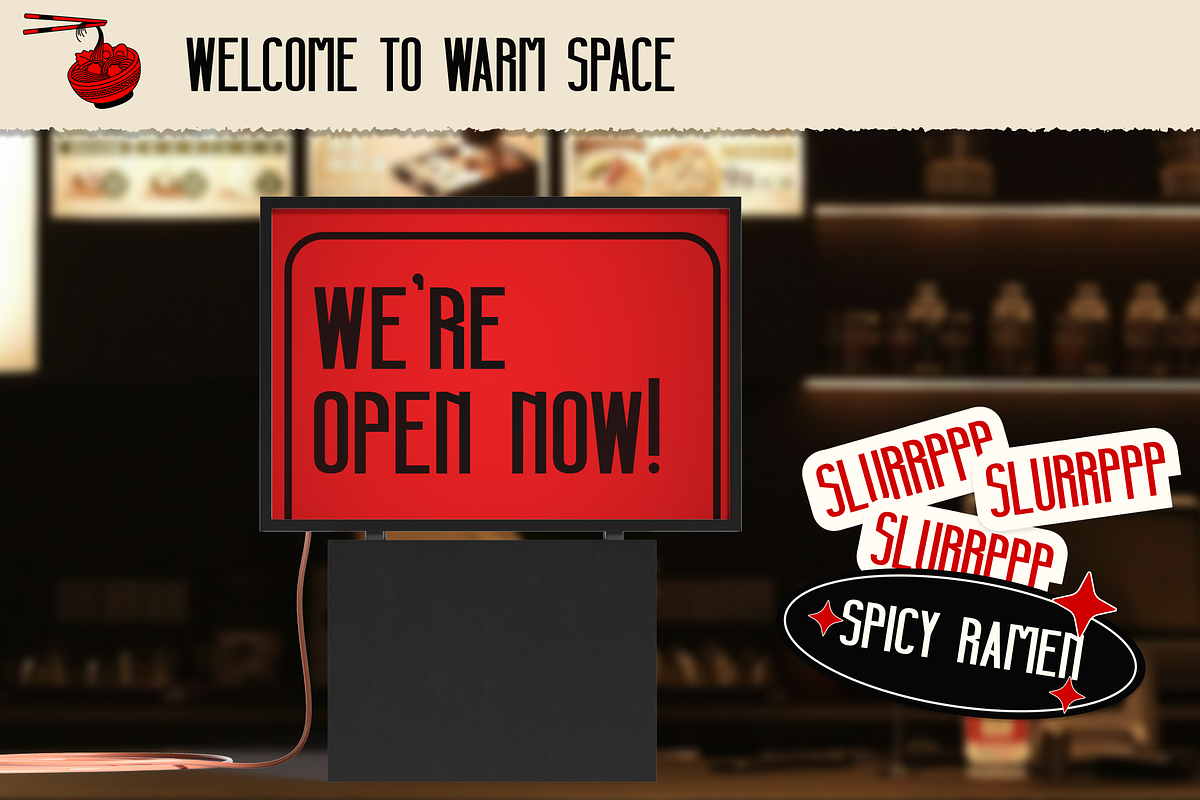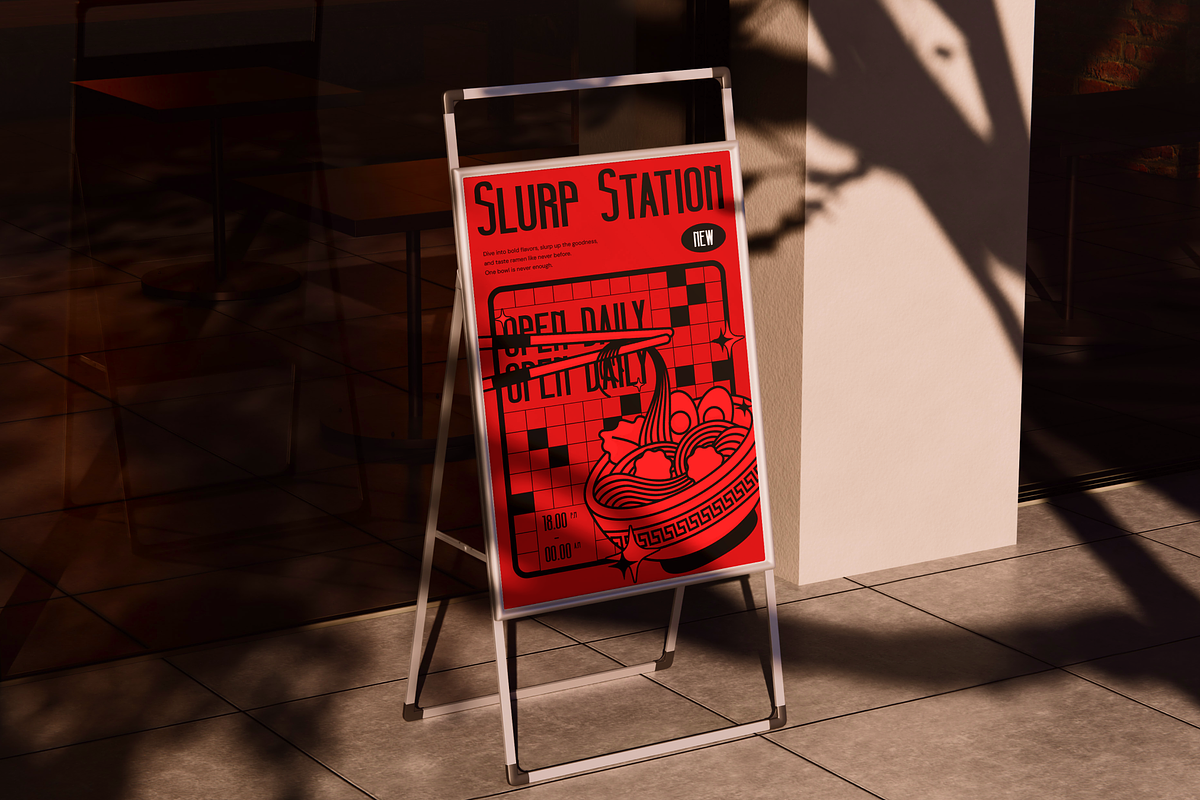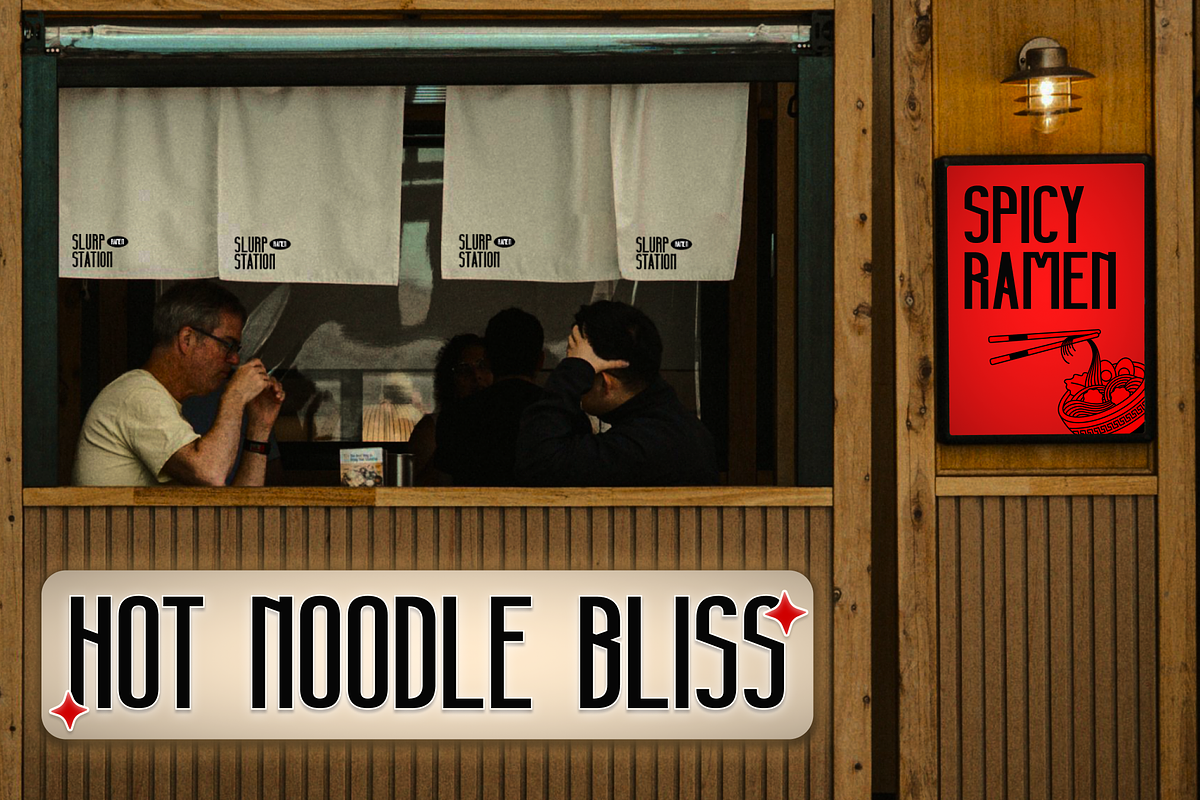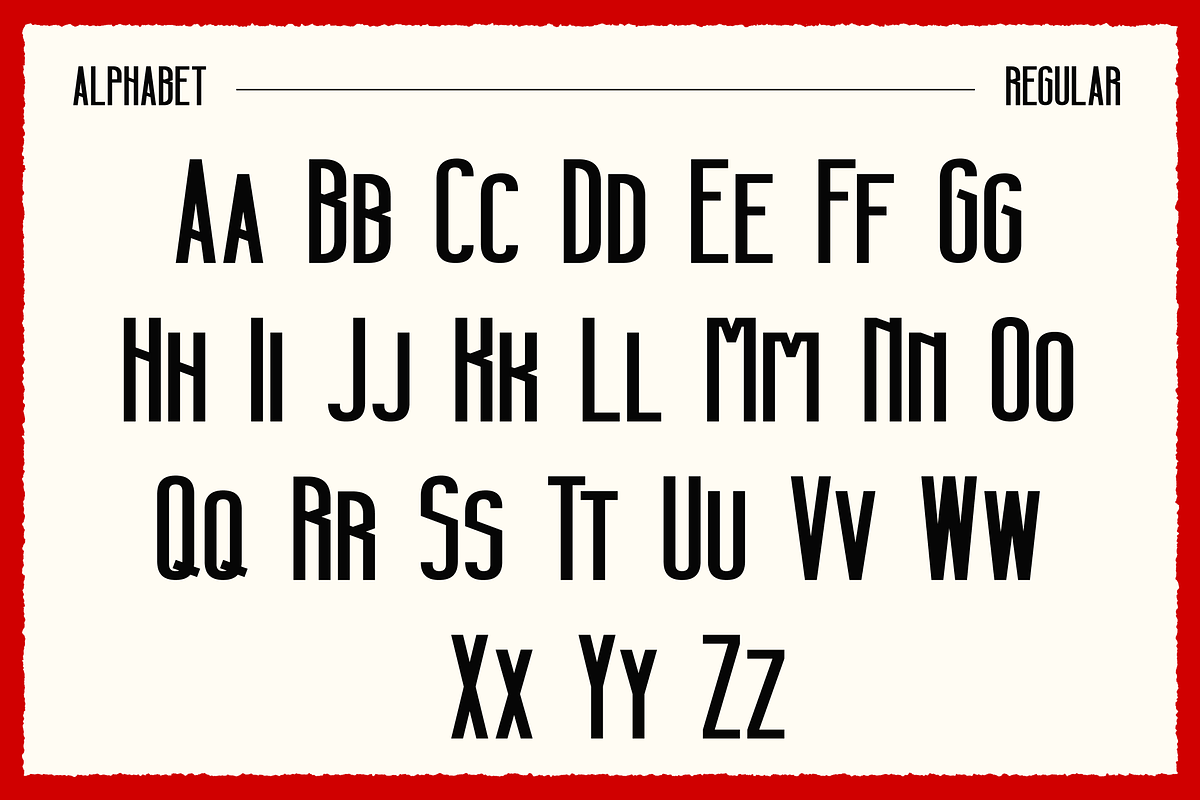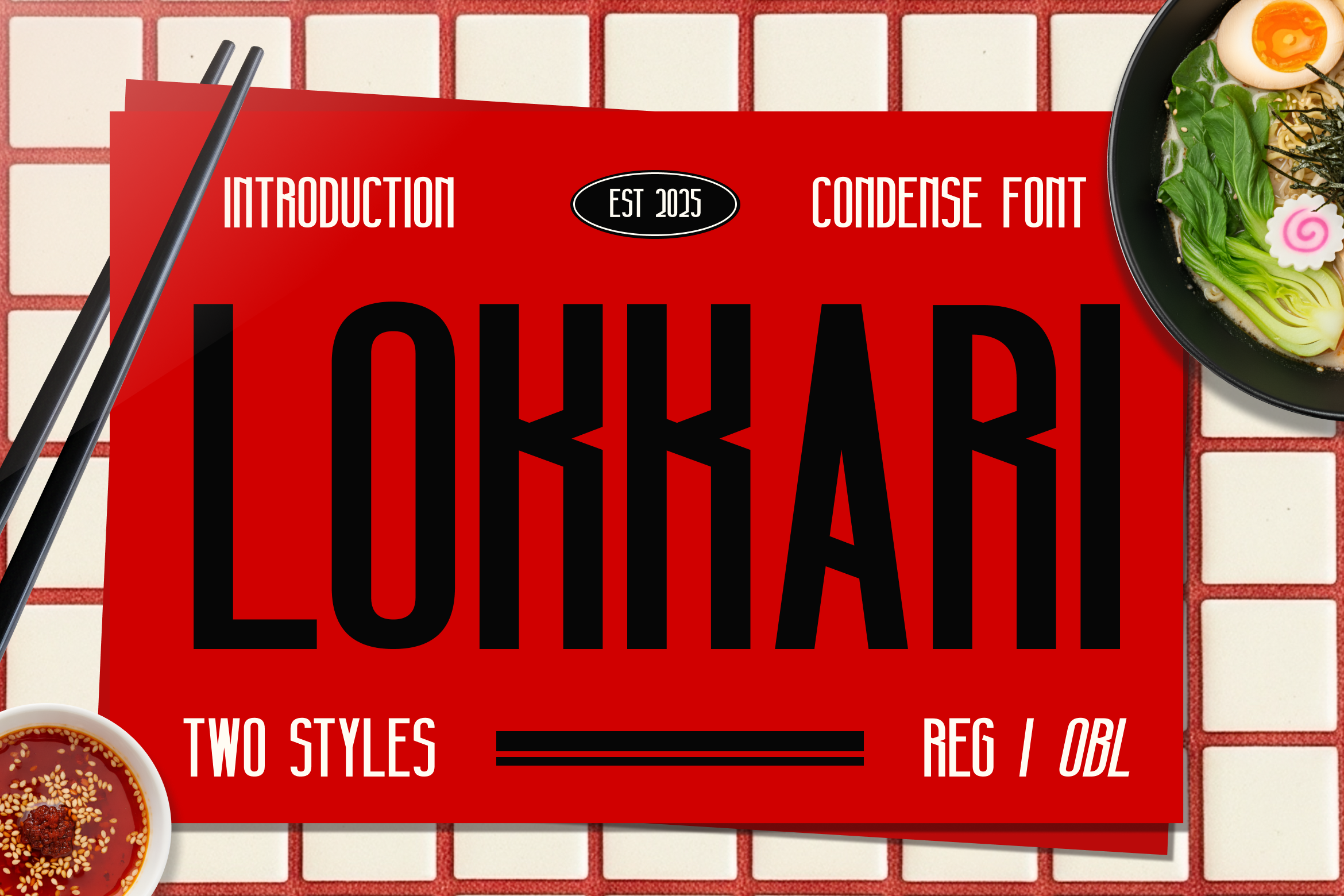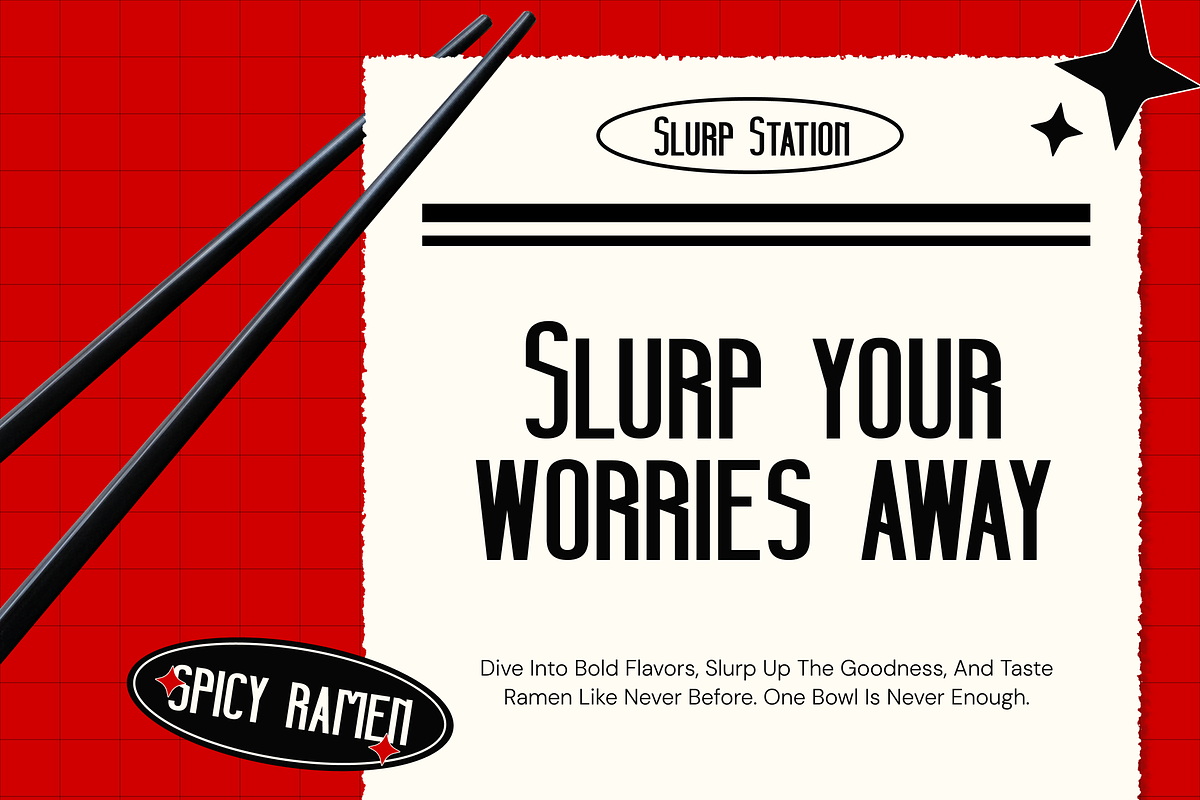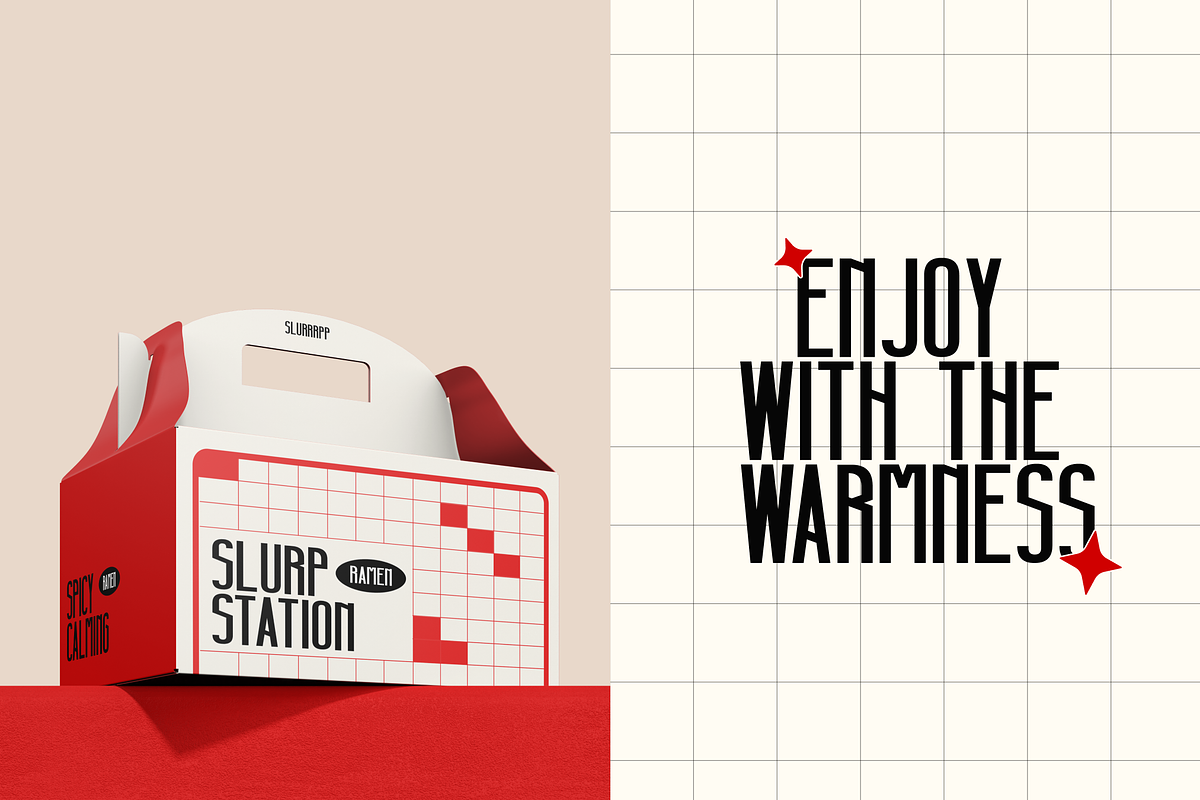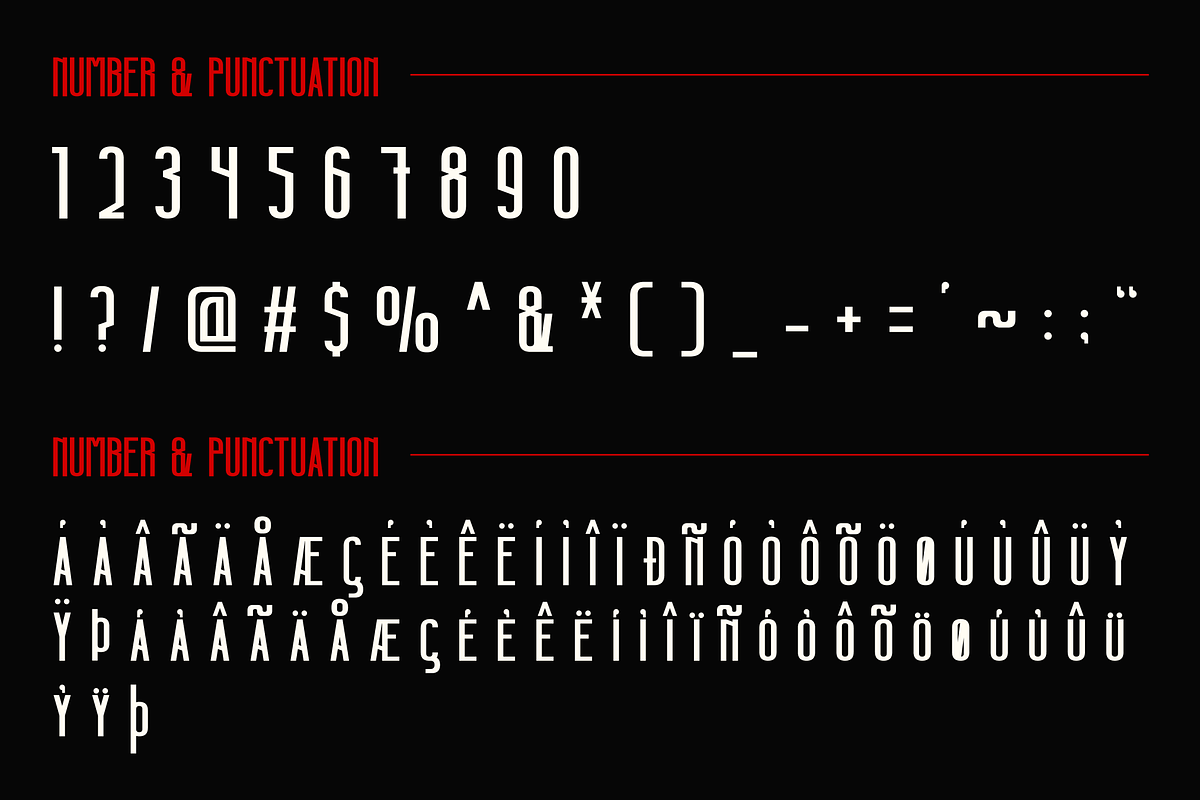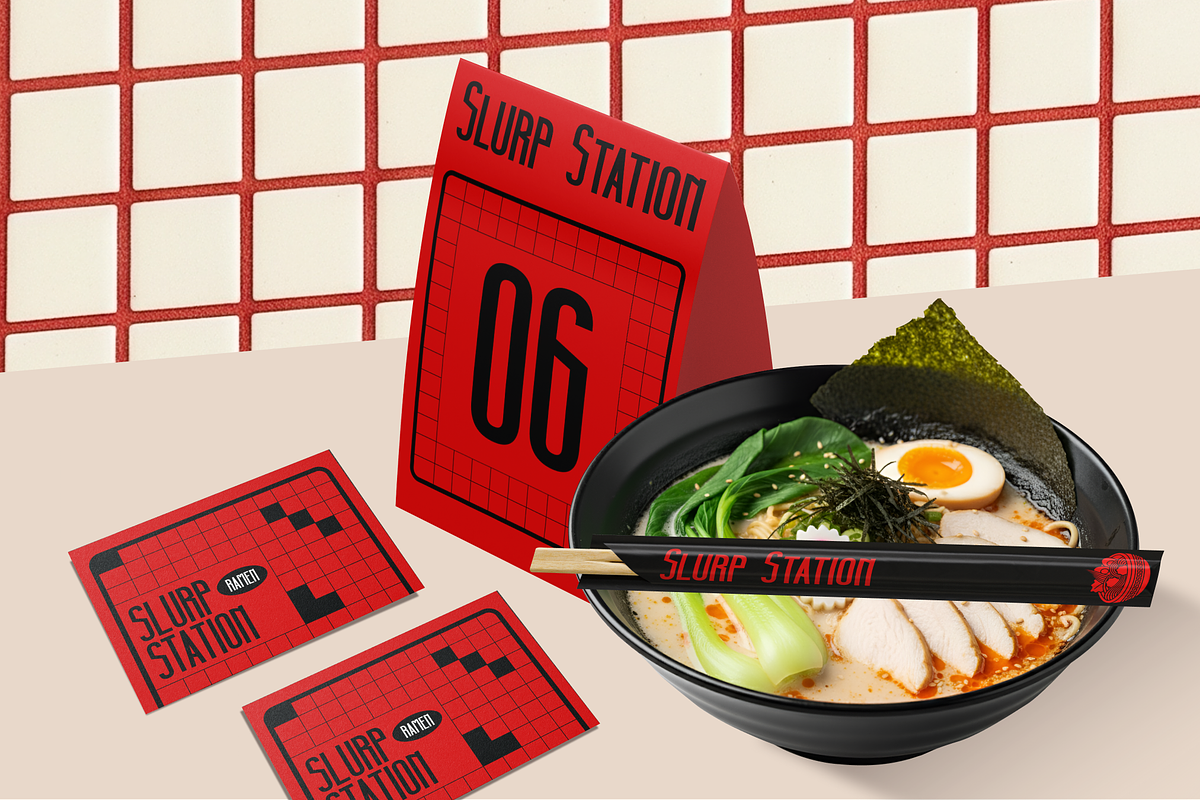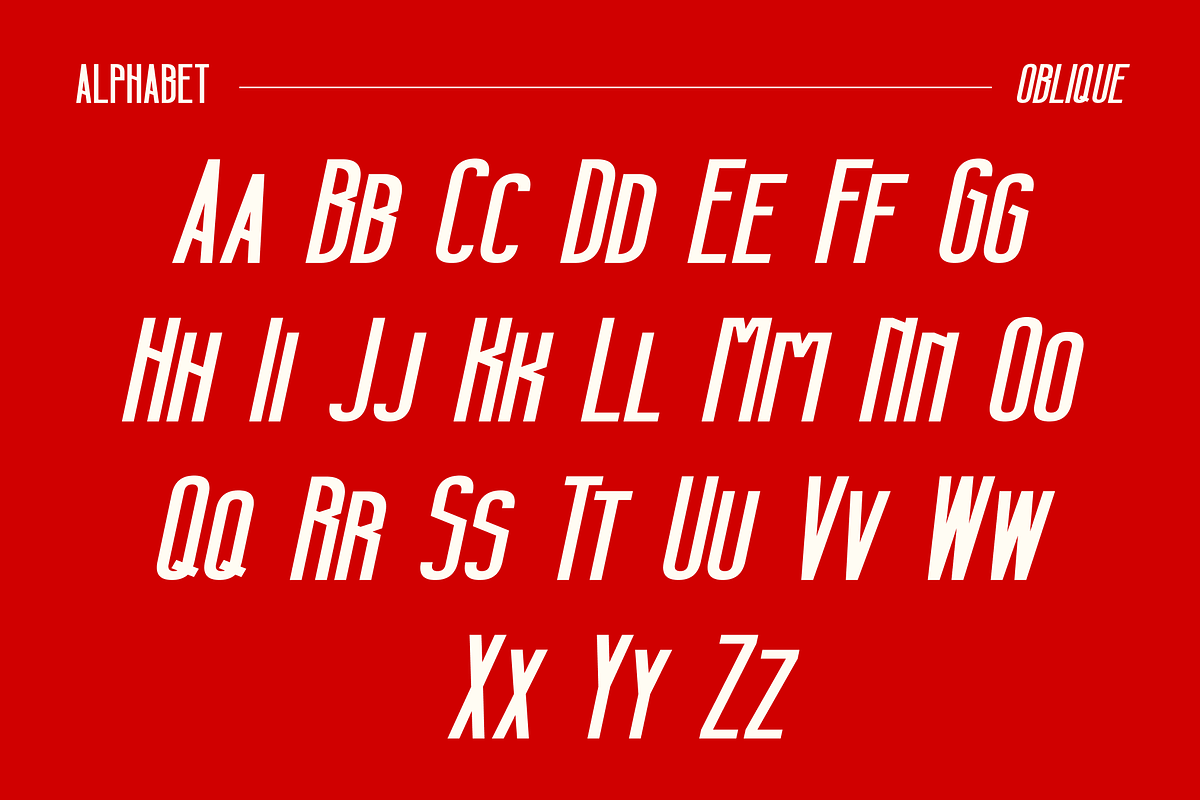
Lokkari - Modern Condensed Font
Lokkari commands attention with its tightly packed letterforms, giving every word a sense of urgency and modern flair. Its slim strokes maintain clarity even when space is at a premium, making it ideal for bold headlines, urban signage, and digital interfaces that demand both impact and precision.
Despite its compact silhouette, Lokkari never feels cramped. Each character flows into the next with a smooth rhythm, balancing form and function in layouts that range from editorial spreads to brand identities. With its refined geometry and versatile presence, Lokkari adds a polished edge to any design without overwhelming the page.
- 2 Styles Font : Regular, Oblique
- Standard letter A-Z and a-z
- Numeral, Symbol, and Punctuations
- OpenType Feature